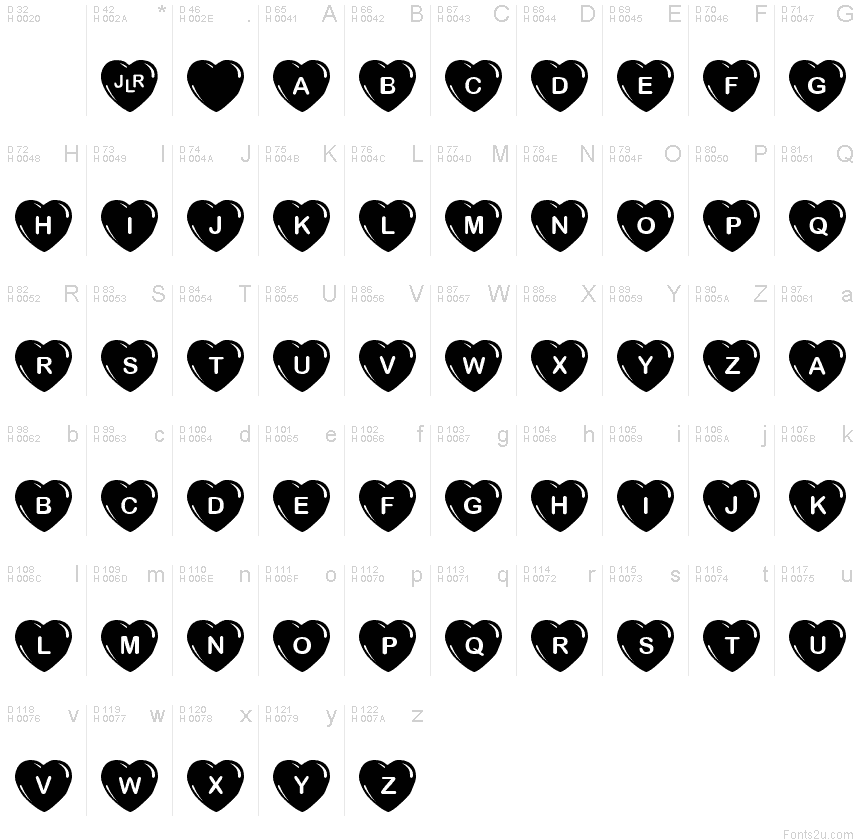
JLR Simple Hearts
JLR Simple Hearts font is a free decorative dingbat typeface. Each glyph is a plump, inky-black heart stamped with a clean, rounded letter in white, with glossy highlights that make it feel like a little candy charm. The shapes are bold and easy to read at a glance, so you can spell out names, short messages, or initials without fuss, while still keeping everything sweet and playful.
Using JLR Simple Hearts, you can quickly build Valentine notes, wedding favors, classroom rewards, stickers, social posts, or scrapbook titles that look hand-crafted but stay perfectly consistent. The solid silhouettes hold up beautifully at both small label sizes and big banner headlines. For balance, pair this free font with a simple sans serif for body text, letting the heart icons do the emotional heavy lifting.